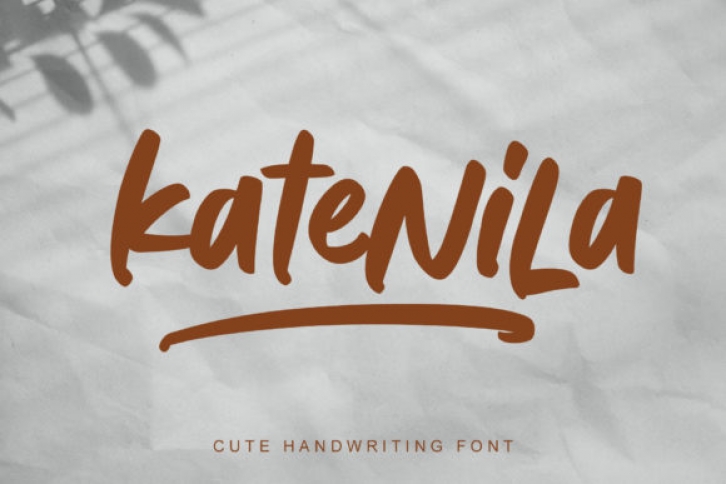
Katenila is a cute handwritten font with a joyful taste. Inspired by marker handwriting and modern calligraphy, this font offers the flexibility of the upper & lowercase that you can mix and match and get your typographic mood.